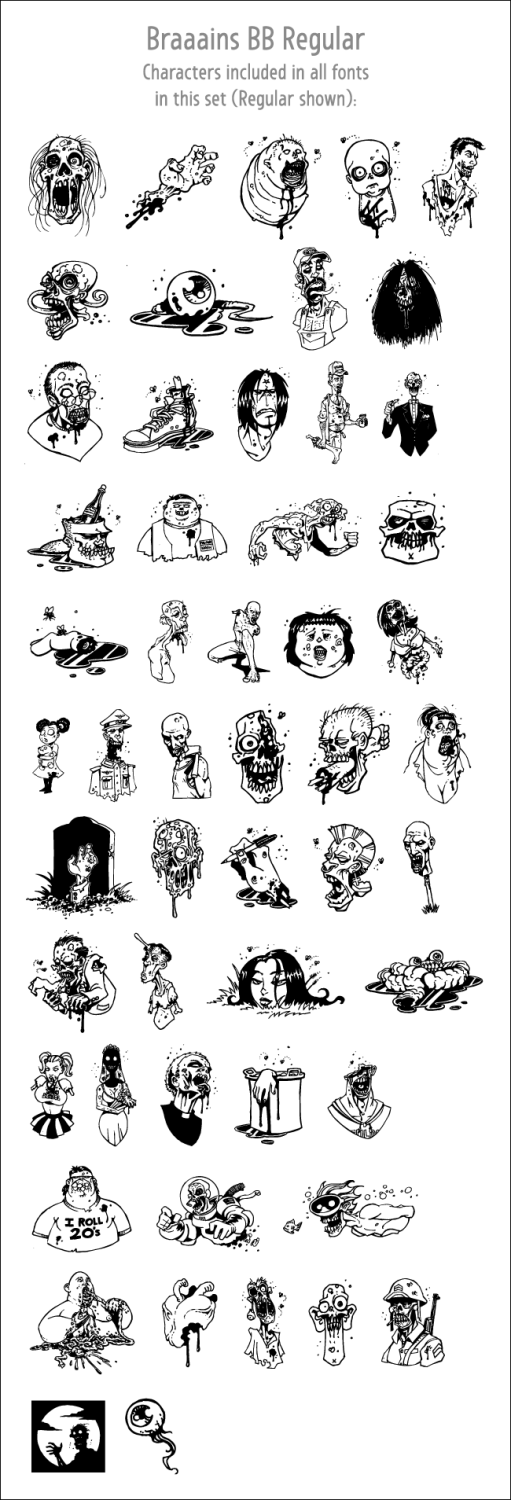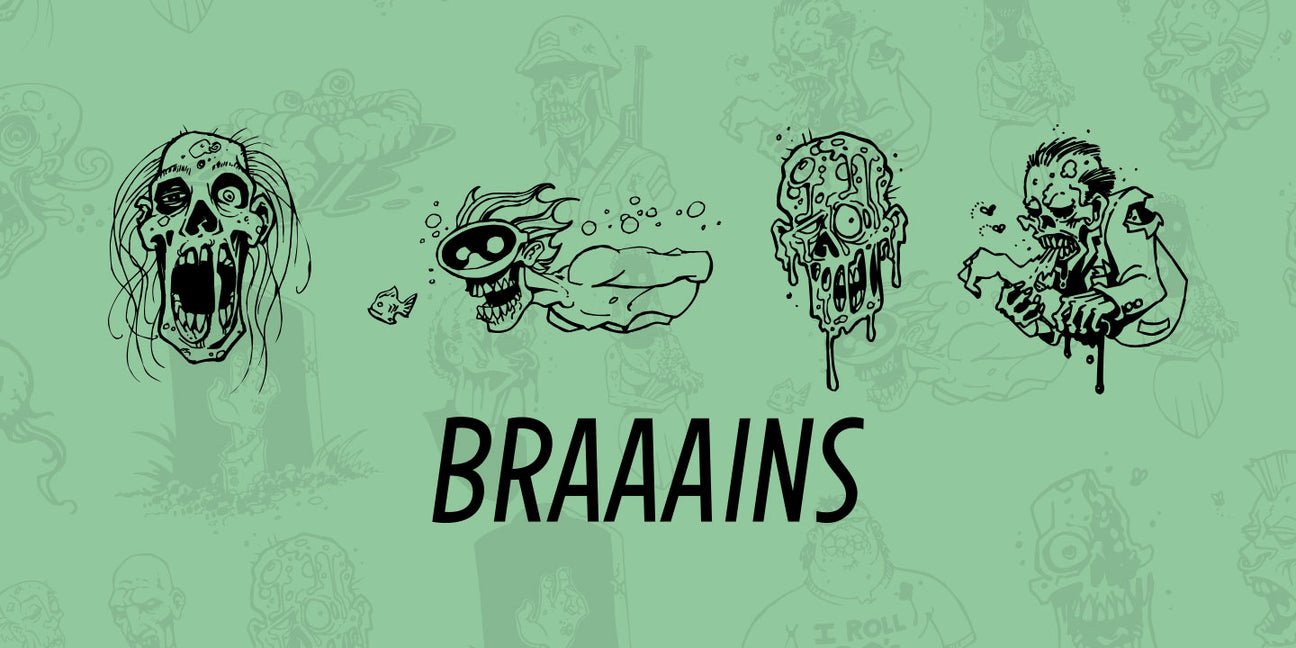
HomeFont BrosDingbatBraaains BB Dingbat Braaains BB FacebookXPinterestWhatsApp 1 of 2 About Braaains BB 53 all-original, all-terrifying zombie illustrations by Nate Piekos and Lee Morin! Also included is a character map so you can pick that perfect undead dingbat!  DOWNLOAD NOW People also explored Number Font Student Notes Font Hello Sunflowers Font Thelored Font Bender Font Dunk Godox Font Arloji Font Bright Style Font Redzone Font 326 0 TagsBraaains BB Font Previous articleUltineNext articleFilmotype Zanzibar LEAVE A REPLY Cancel reply Comment: Please enter your comment! Name:* Please enter your name here Email:* You have entered an incorrect email address! Please enter your email address here Website: Save my name, email, and website in this browser for the next time I comment. Personal Use Free The Pottery Personal Use Free Read more about this font Loopina Personal Use Free Read more about this font Stronger Personal Use Free Read more about this font Metal Lord Personal Use Free Read more about this font BLOG Free vs Paid Fonts: Why Investing in Premium Fonts Is Worth It Free vs Paid Fonts: Why Premium Fonts Are Worth It in 2025 The debate of free vs paid fonts continues in the design world. While... Where to Buy American Fonts Online in 2024 How to Cut Any Font on Cricut: Convert a Font to SVG (Free) 5 Fonts That Will Dominate Design Trends in 2026